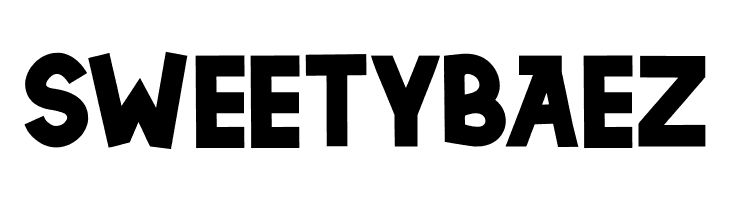
A bold, playful font with exaggerated curves and high contrast.
A bold, playful font with rounded, bubbly characters.
A bold, playful font with exaggerated curves and a whimsical style.
A playful, bold typeface with rounded, bubbly characters perfect for fun and whimsical designs.
A bold, playful font with rounded, bubble-like characters ideal for fun and whimsical designs.
A bold, rounded font with a playful and whimsical style.
A bold, playful font with rounded, bubbly characters ideal for lively designs.
A playful, bold font with rounded edges and a hand-drawn style.